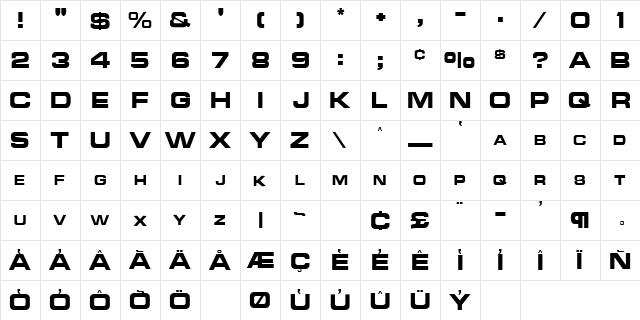
NCC1701A Regular
Design Context for NCC1701A Typeface
NCC1701A takes a measured approach to typography — its balanced proportions and neutral character make it a reliable workhorse for both digital and print work.